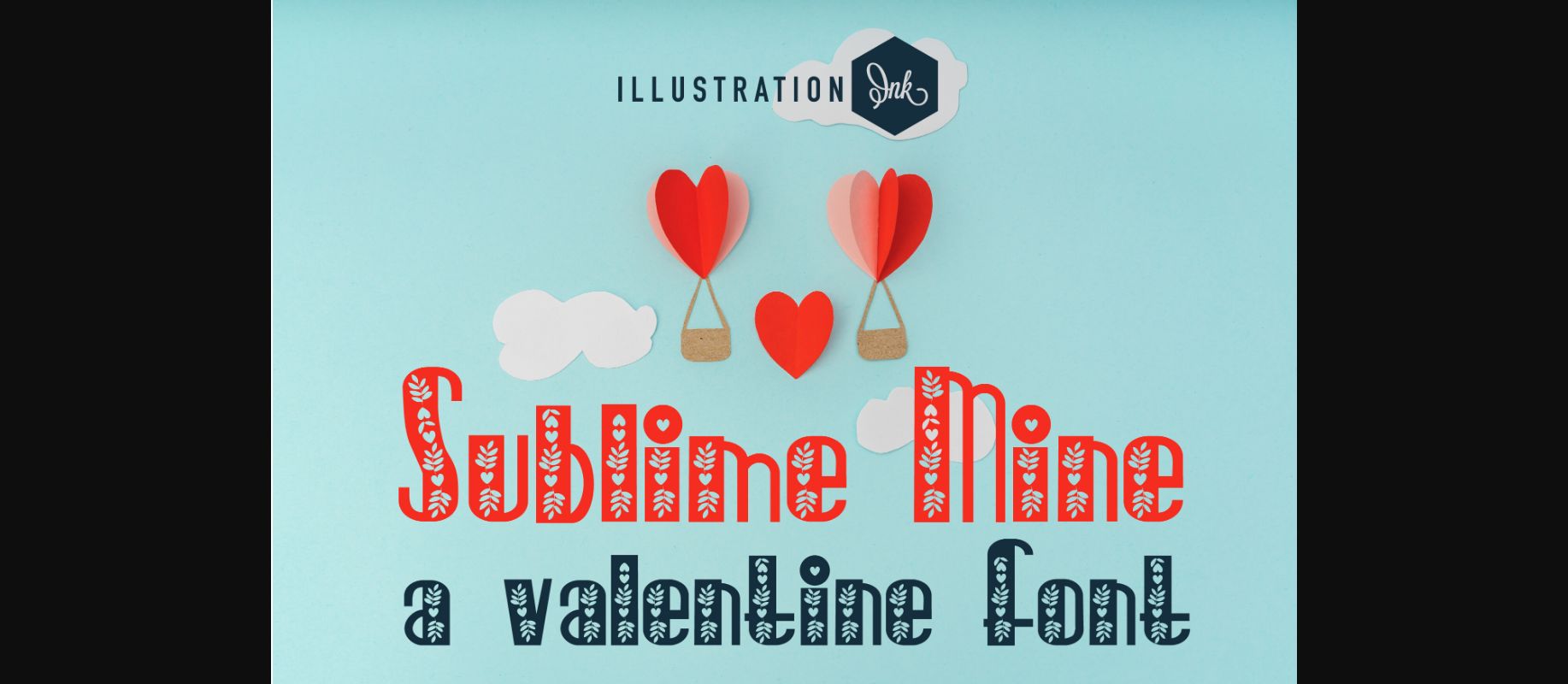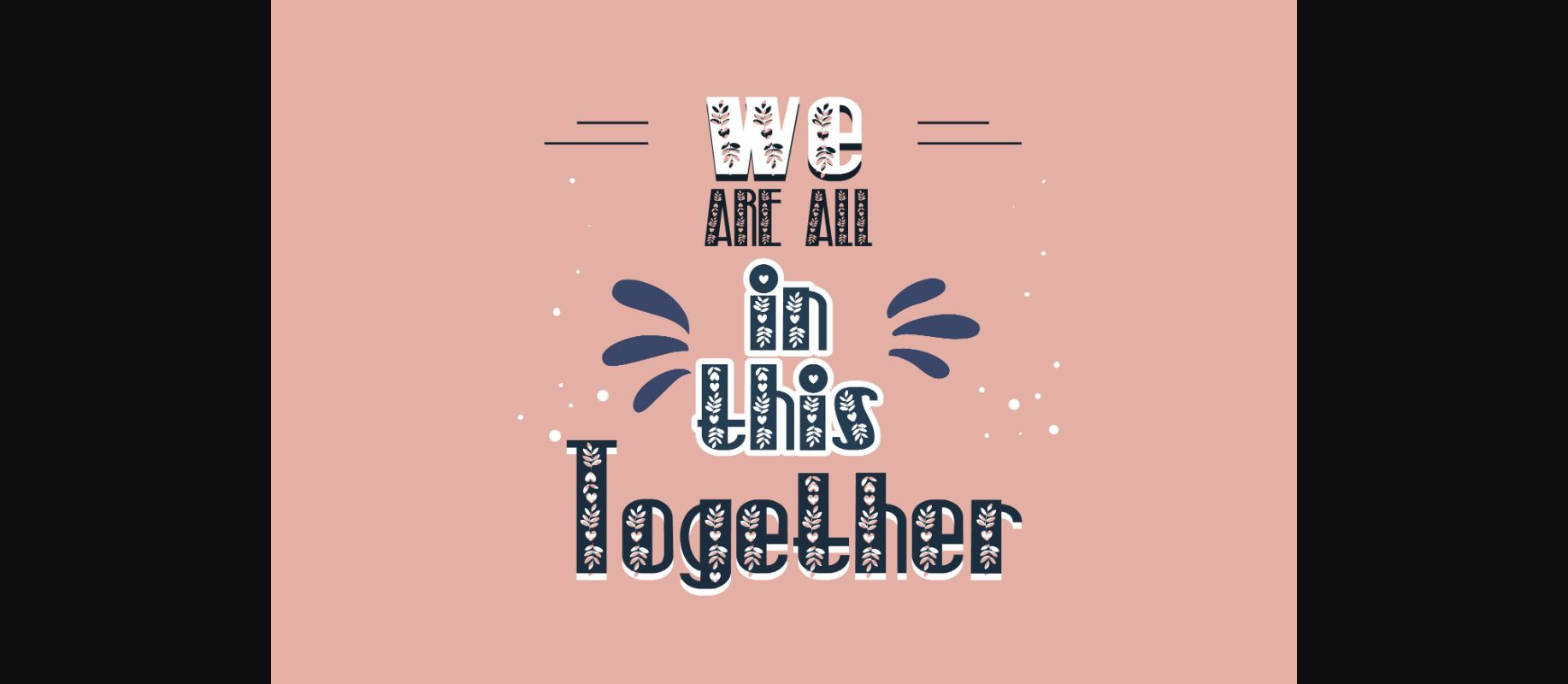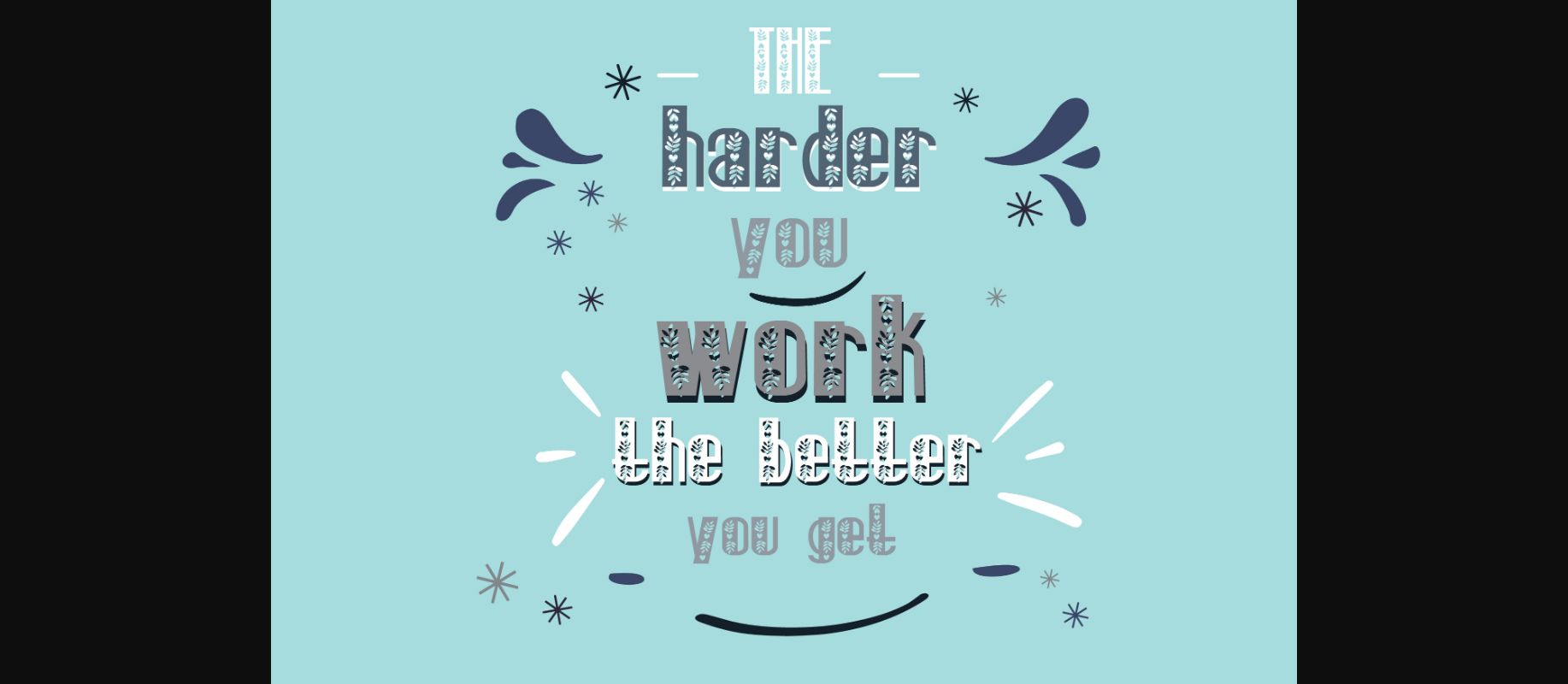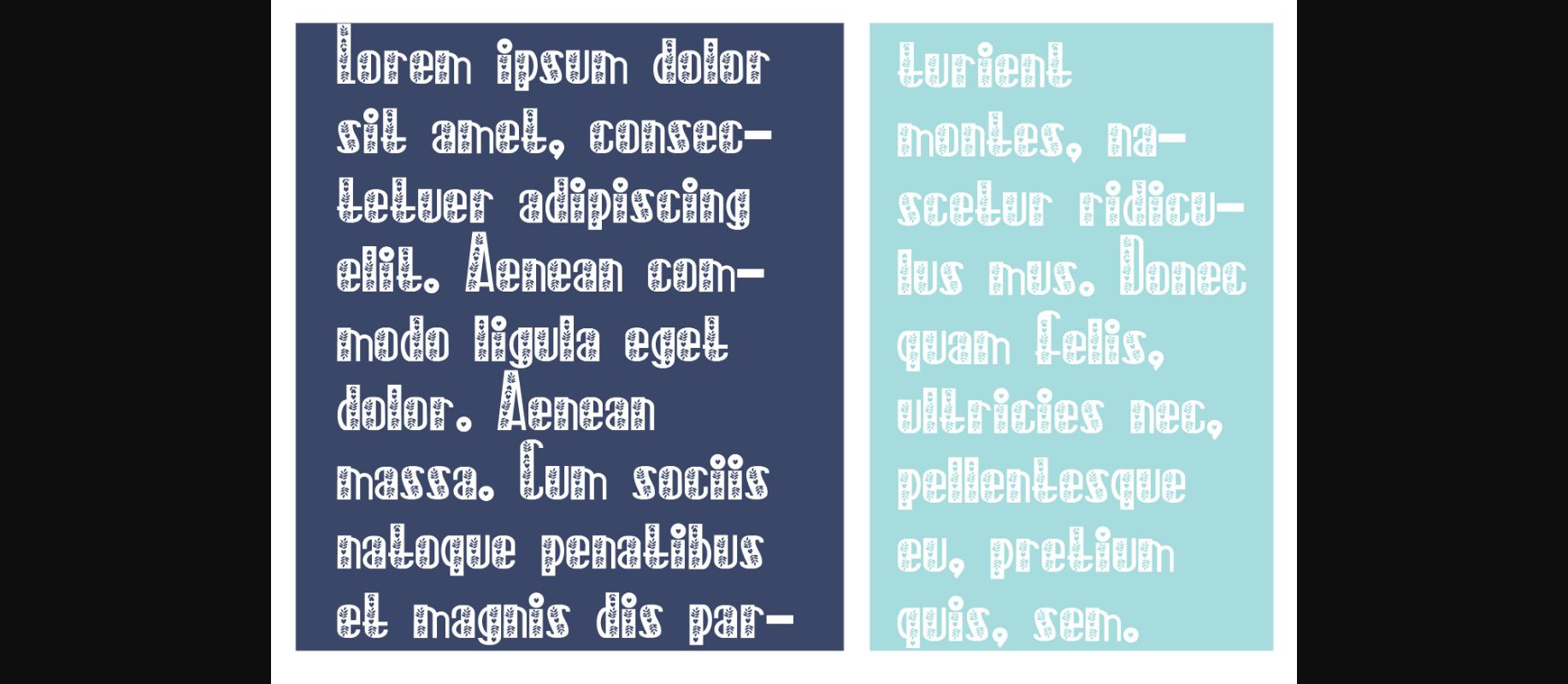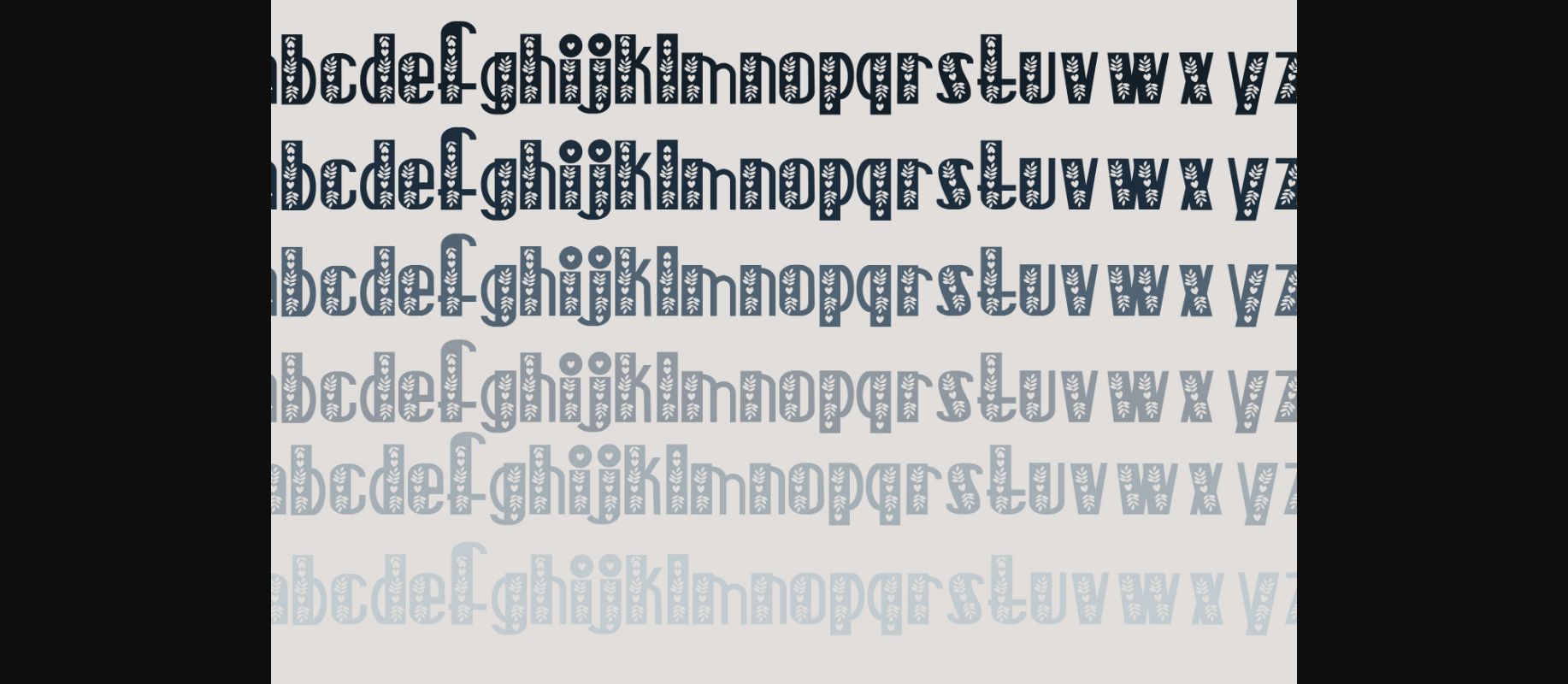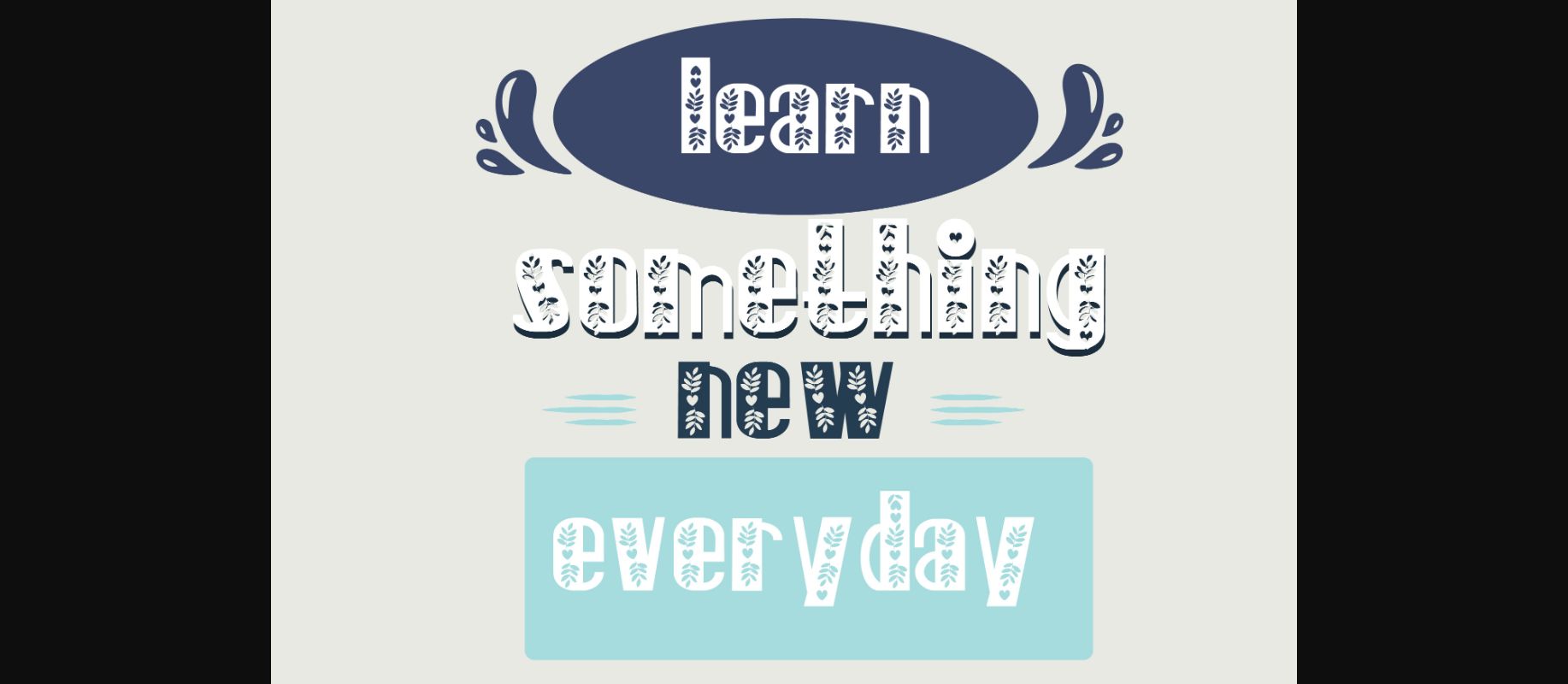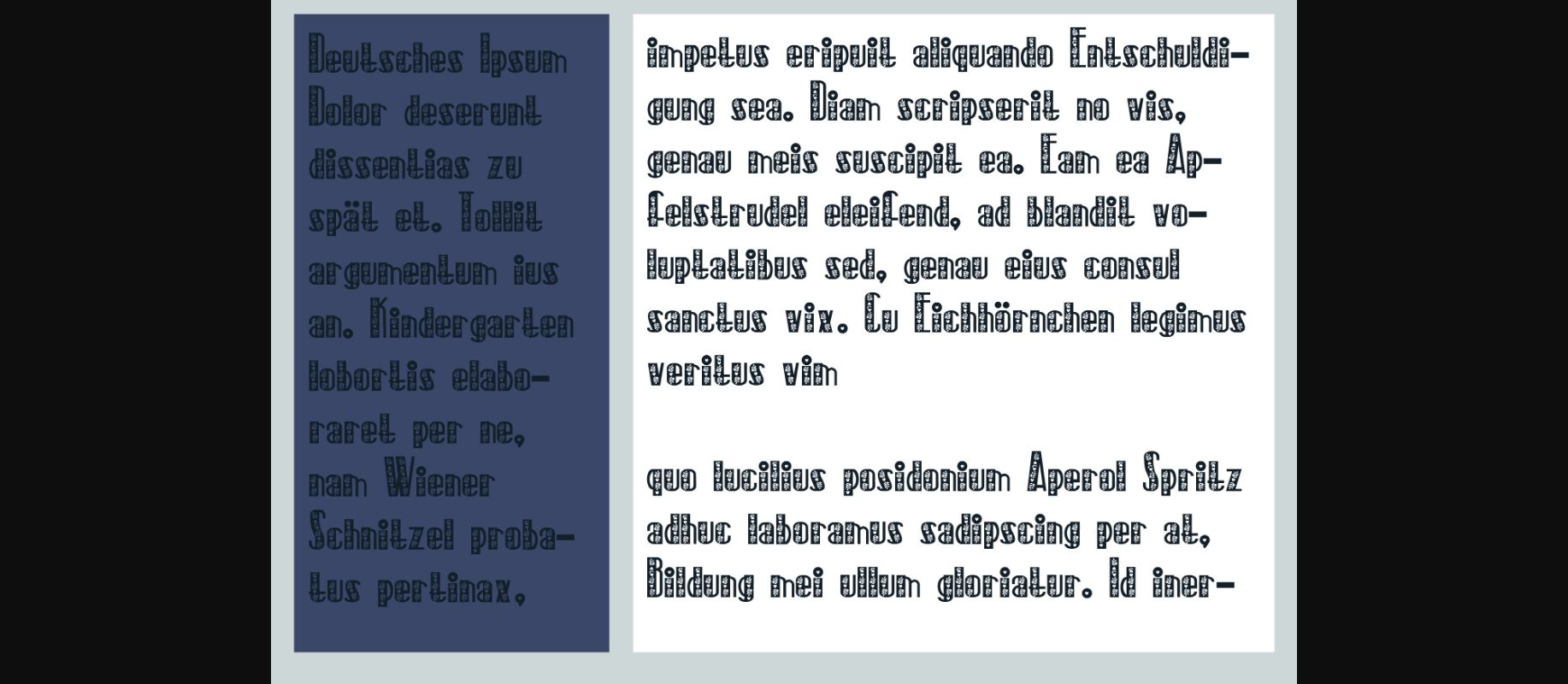
Sublime Mine Font
About Sublime Mine Font
This hand-crafted sans serif font features a heart floral on each letter. No matter the topic, this font will be an incredible asset to your fonts’ library, as it has the potential to elevate any creation.